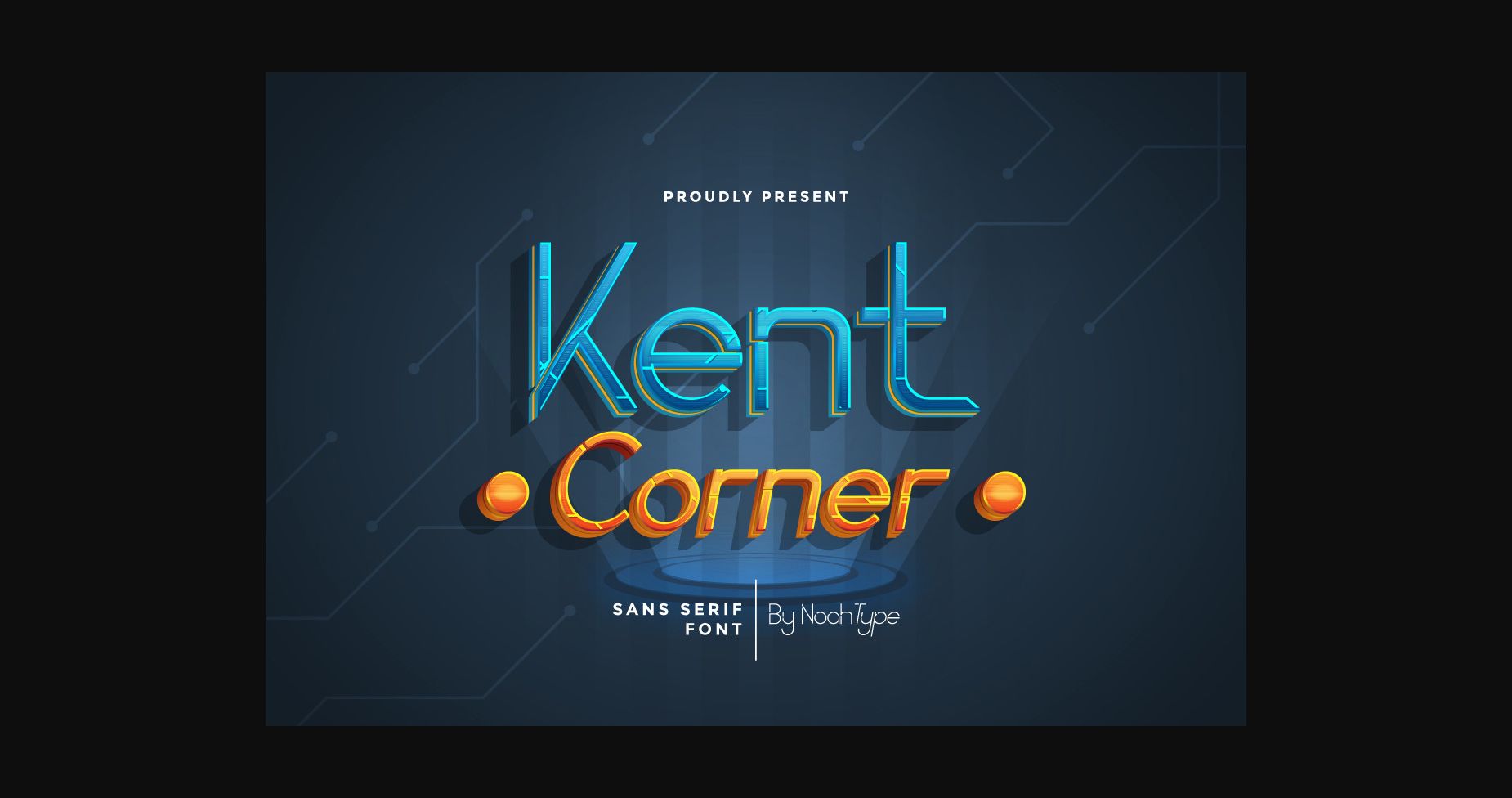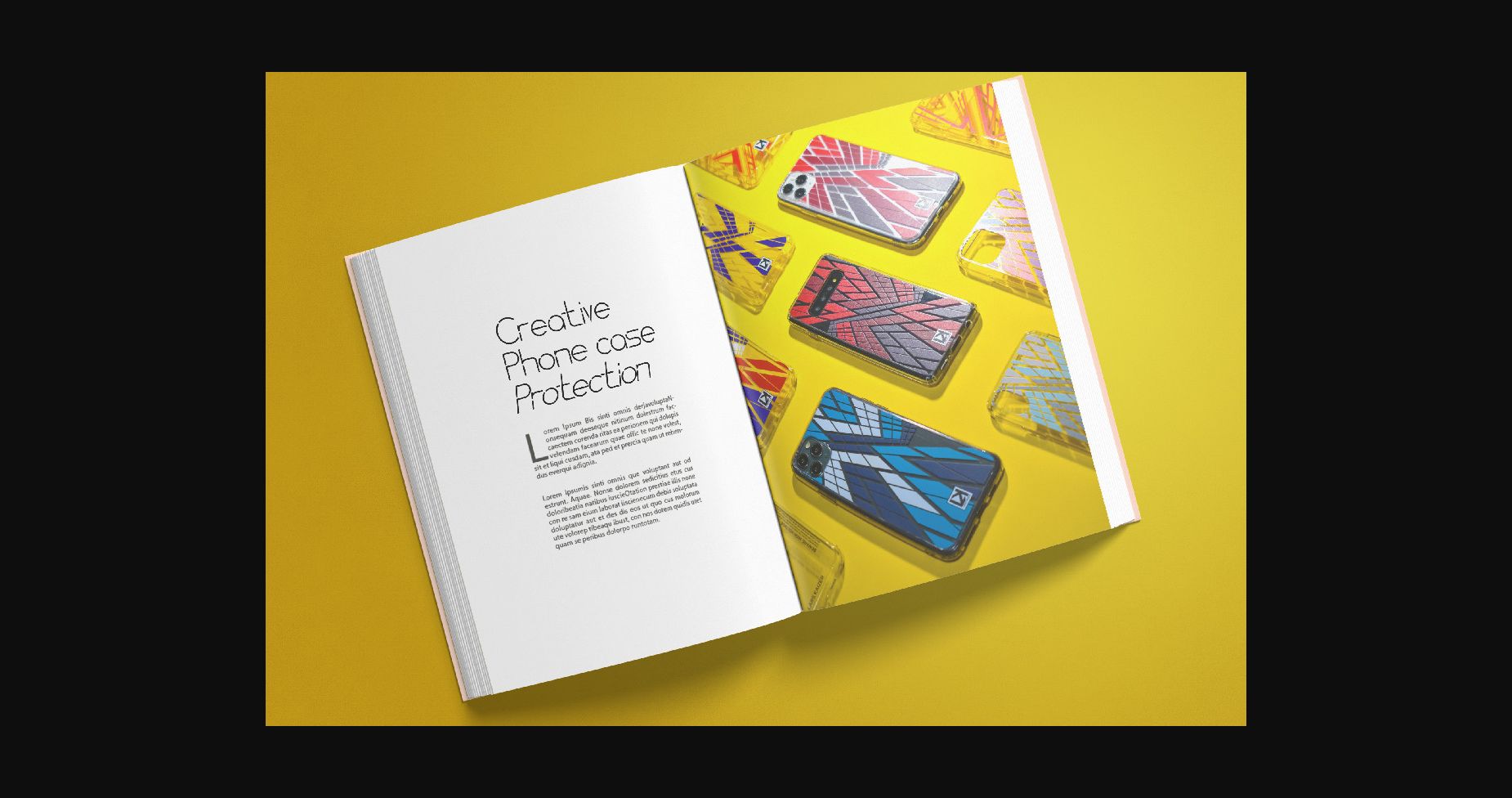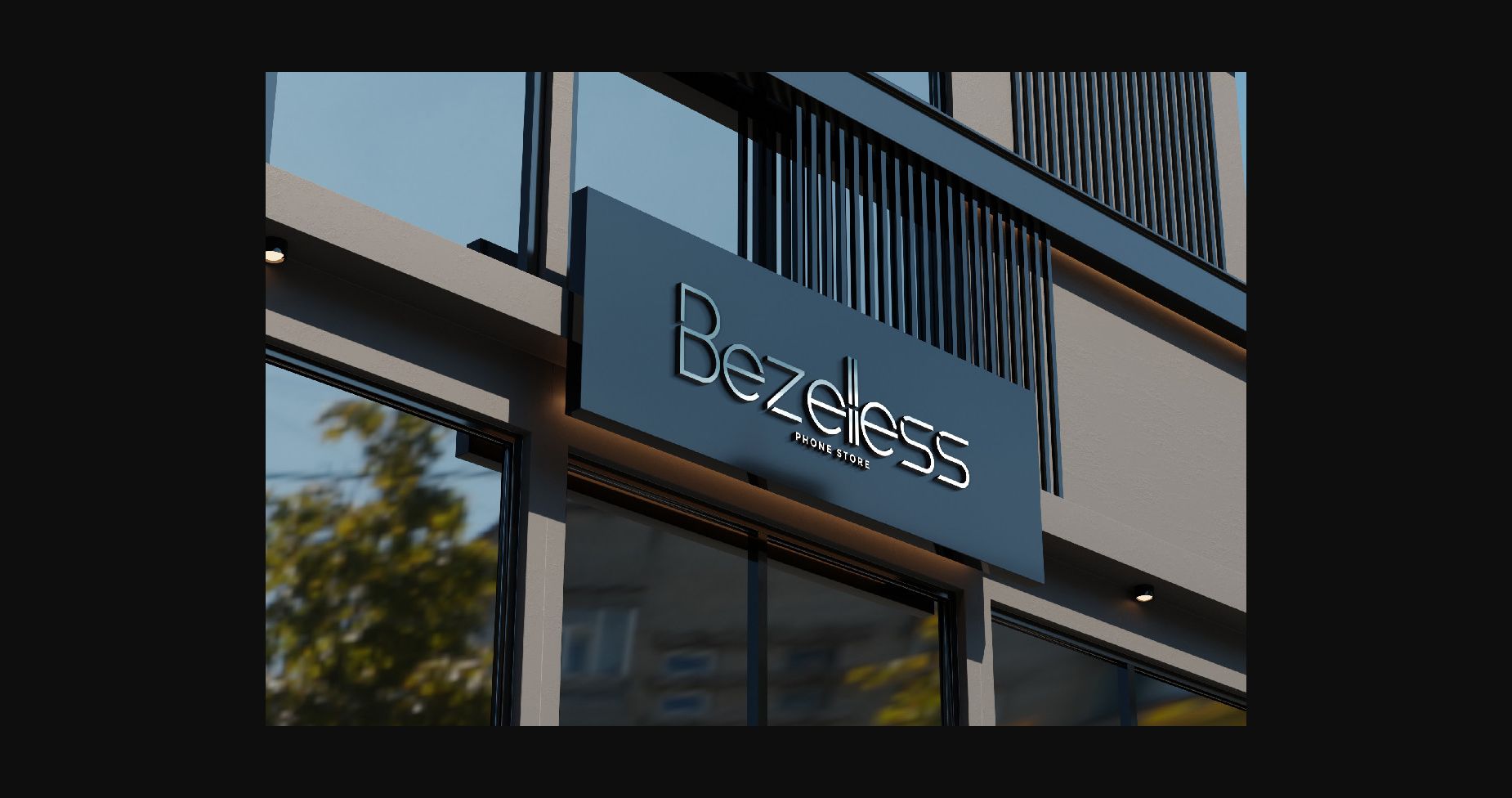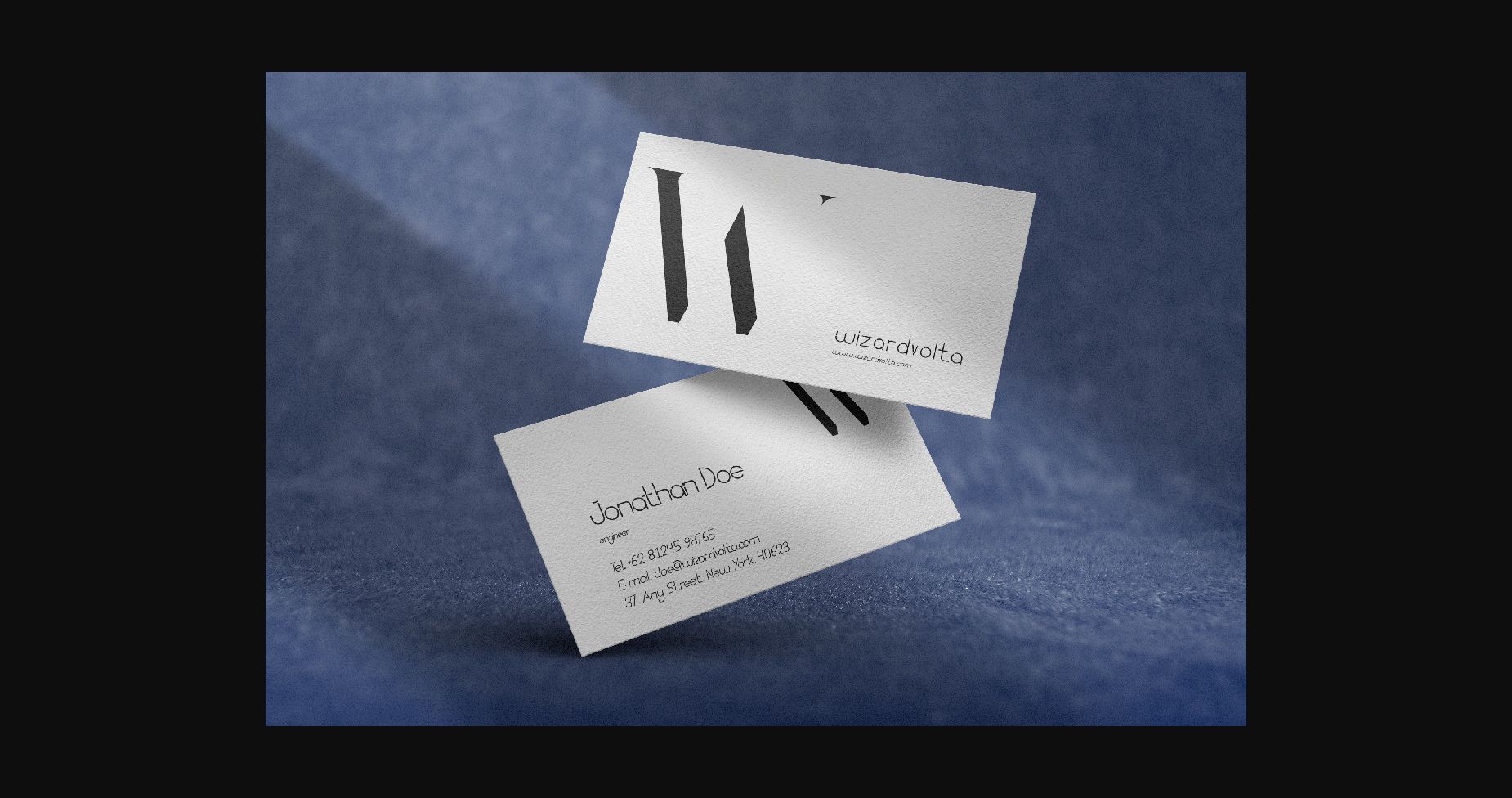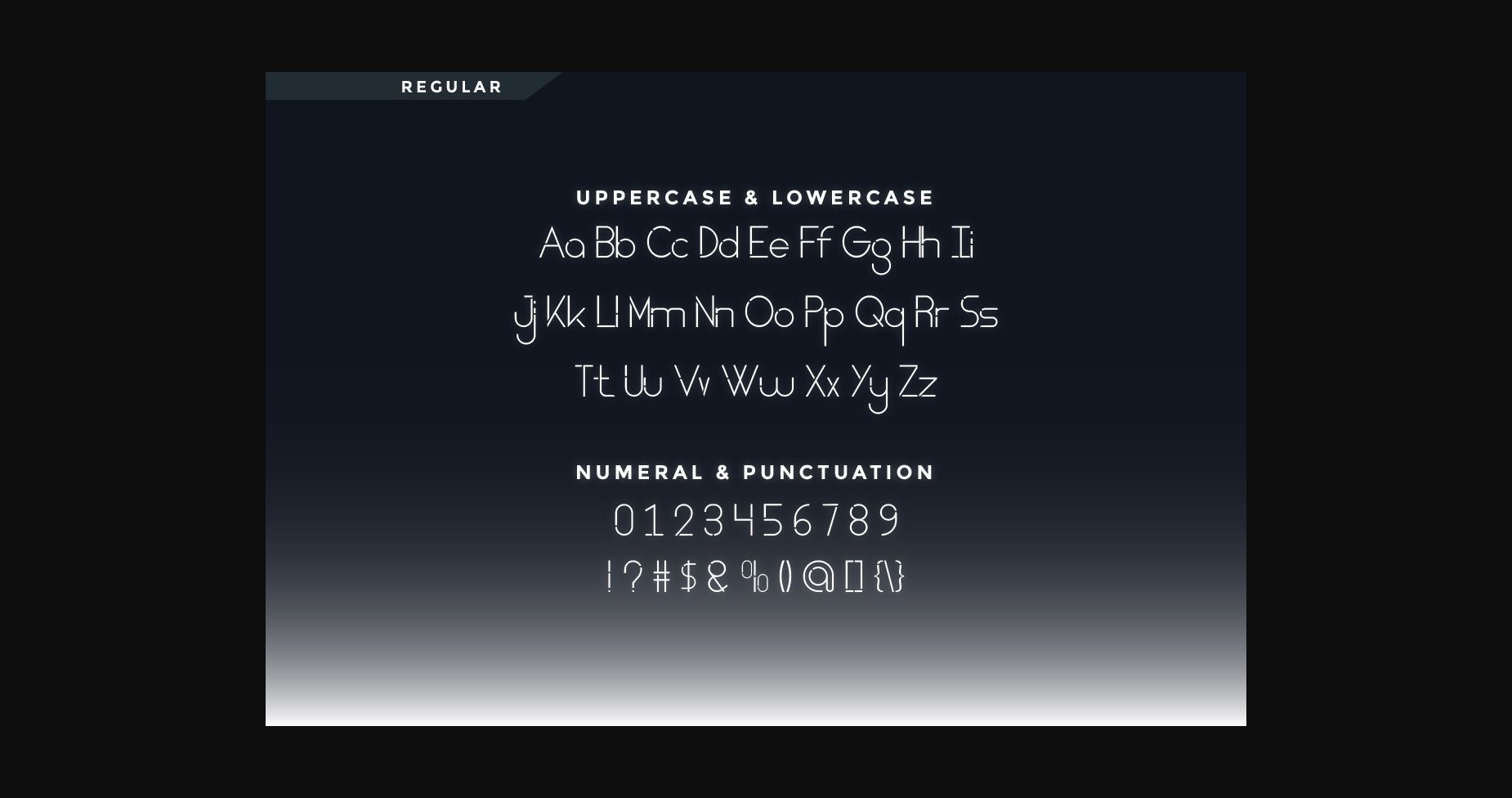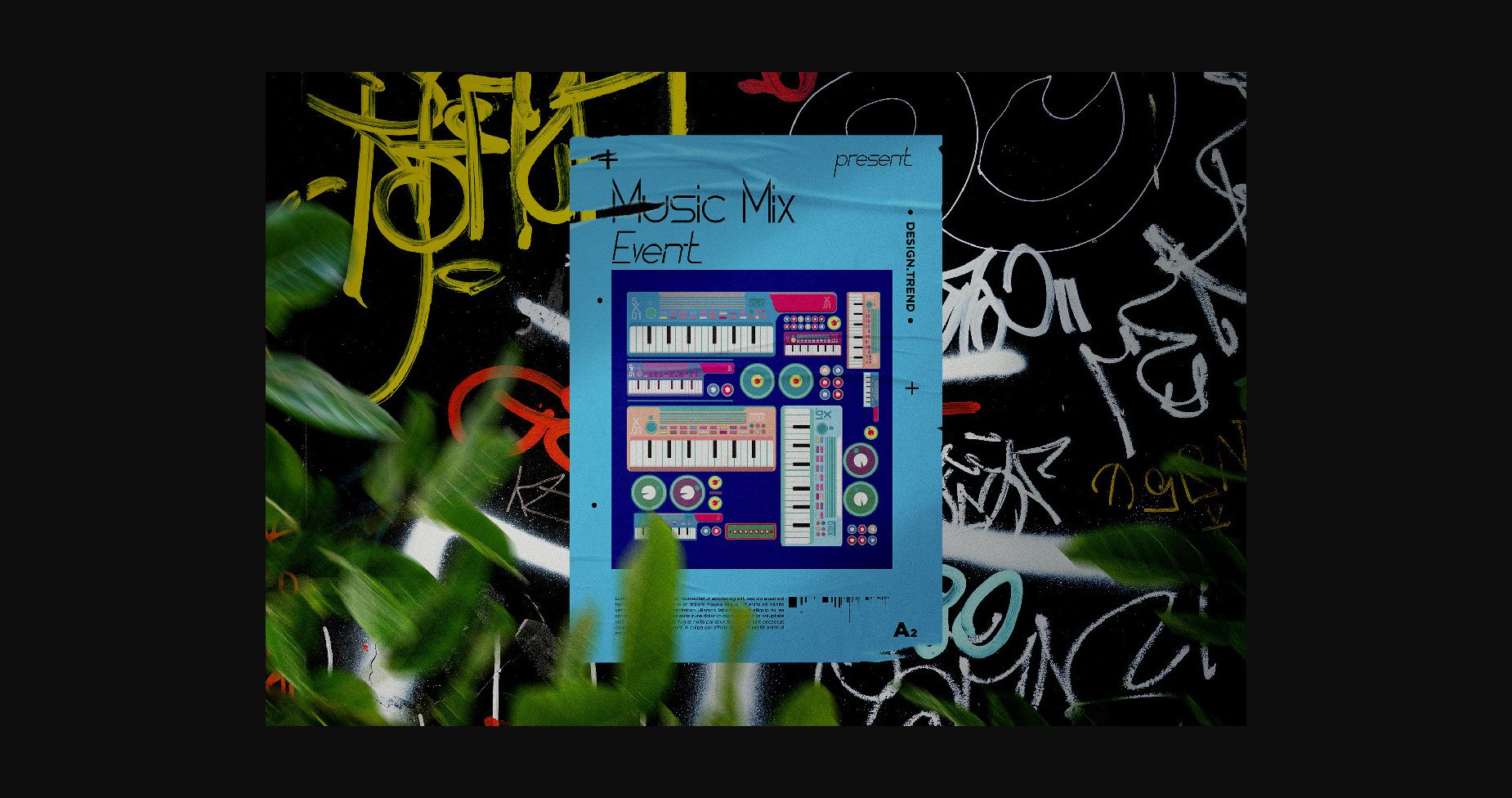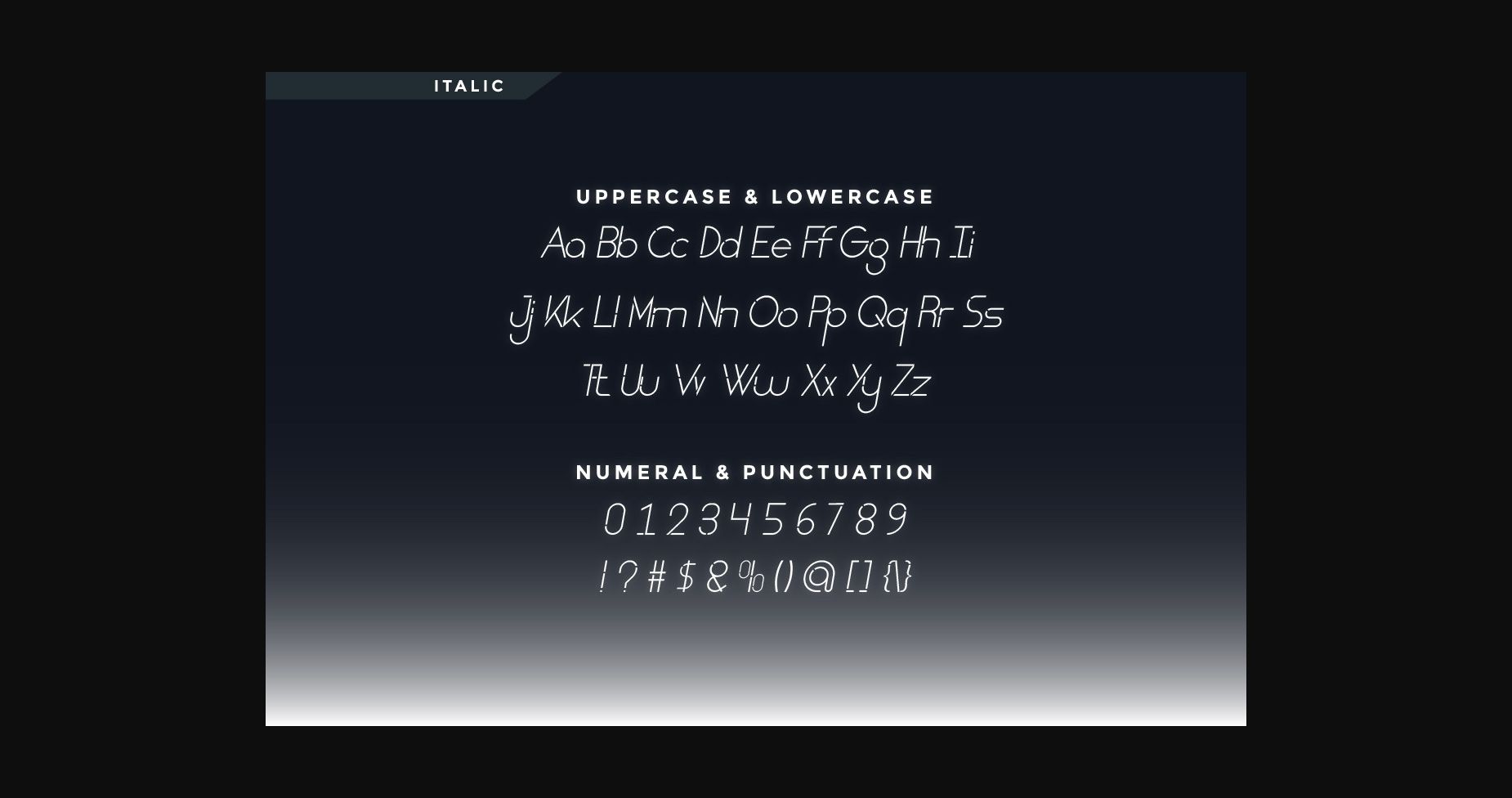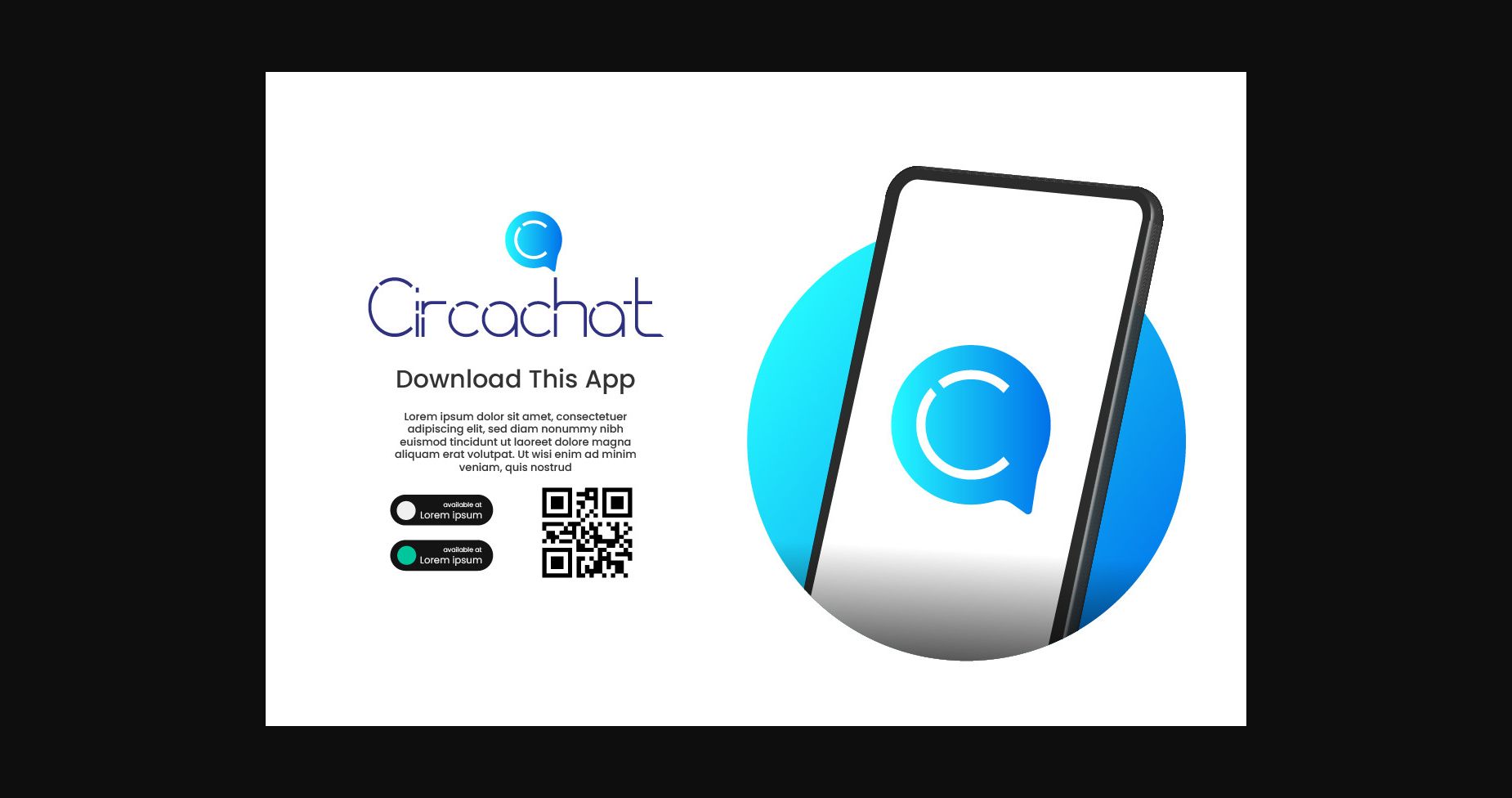
About Kent Corner Font
Kent Corner is a san serif font with a unique modern style. The font was inspired by many street arts, techno, and hip posters. It has a unique style that will bring a special effect to your designs.
This font works for games, technology, events, spaceship, headlines, logos, posters, titles, products, etc